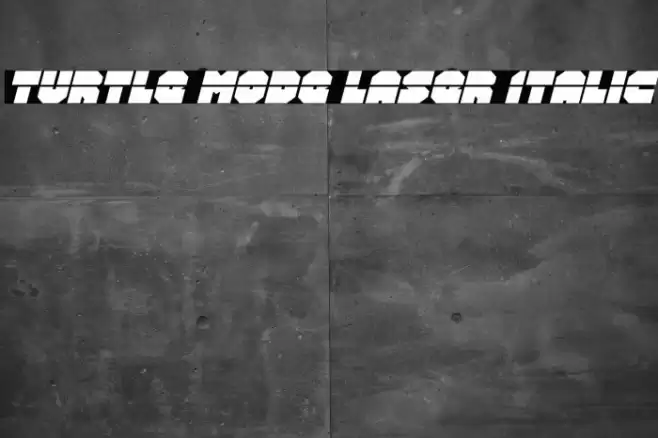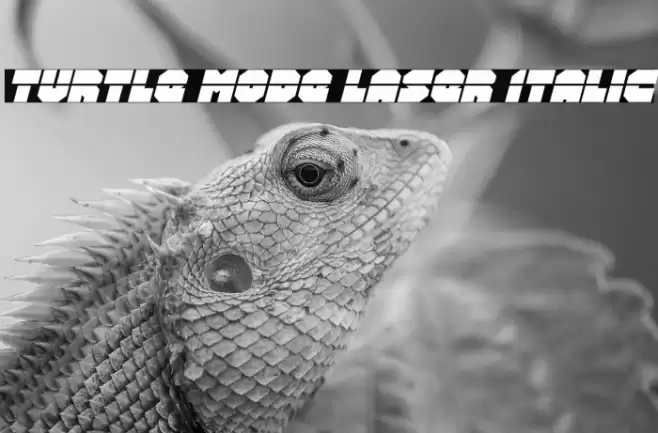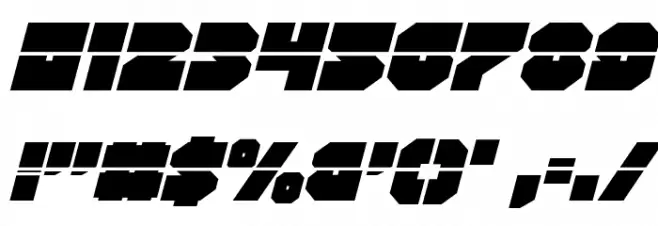
Turtle Mode Laser Italic Font
Turtle Mode Laser Italic Description
This font features a bold, futuristic design with a strong geometric influence. The characters are constructed with sharp angles and a distinct slant, giving it a dynamic and energetic appearance. The boldness of the letters is complemented by a consistent stroke width, creating a uniform and cohesive look. The angular cuts and slanted orientation suggest movement and speed, making it ideal for projects that require a modern and edgy aesthetic. The uppercase and lowercase letters maintain a consistent style, while the numbers and special characters are designed to match the overall theme, ensuring versatility across different applications.
A bold, geometric font with a futuristic and dynamic slant from Uncategorized fonts.
- Proposed Projects: Ideal for technology branding, sports team logos, video game titles, and sci-fi themed posters.
- Overall Style: Futuristic